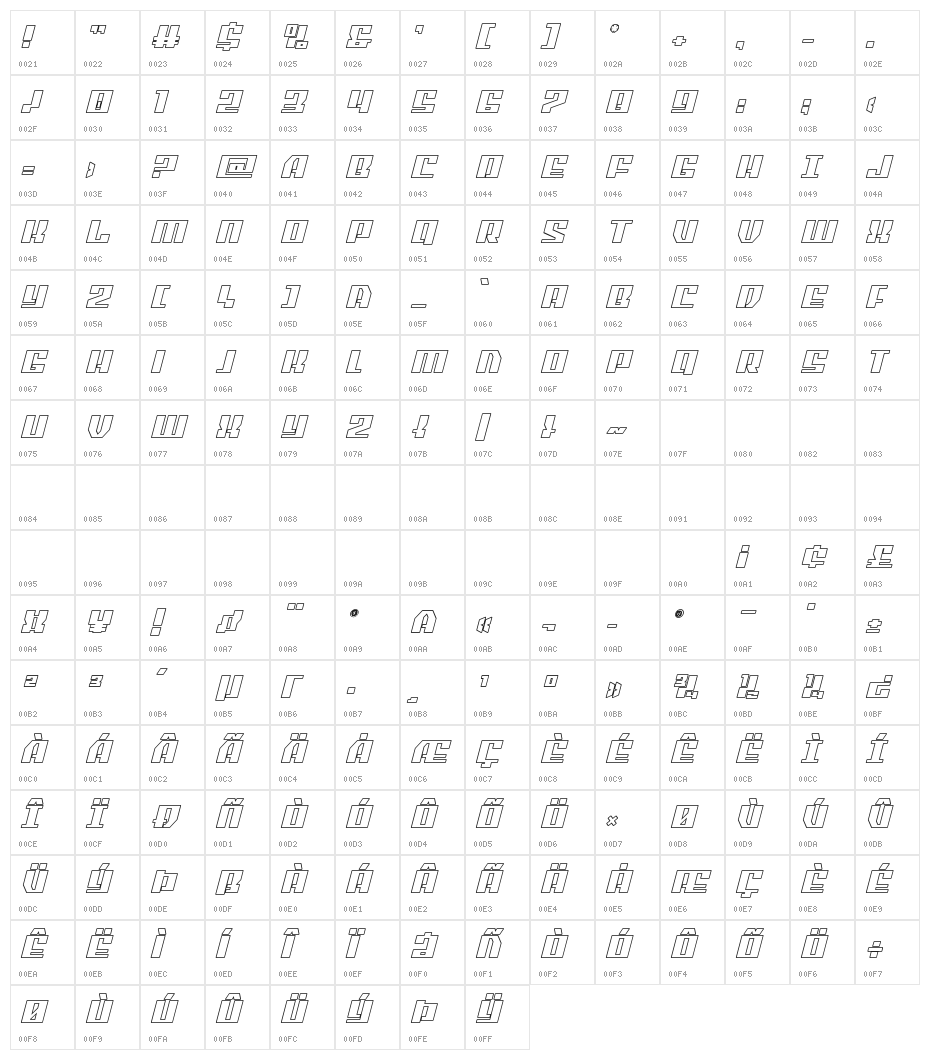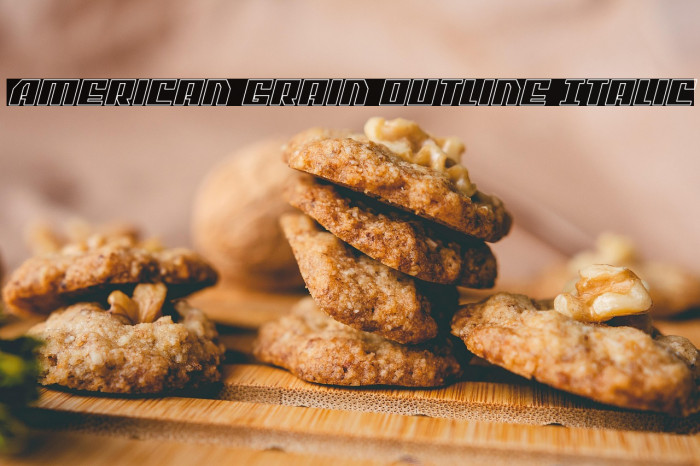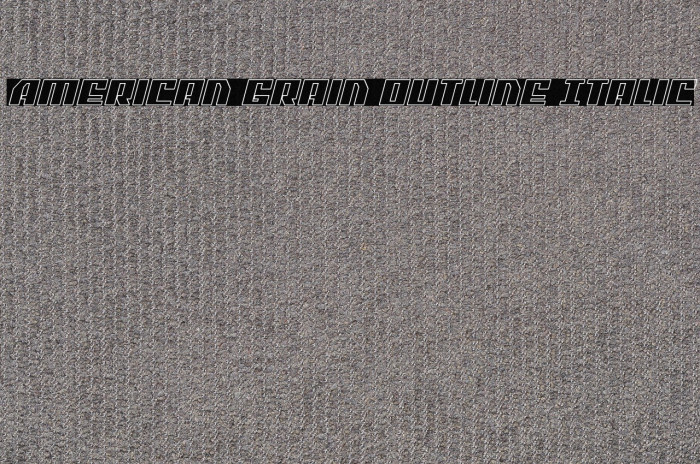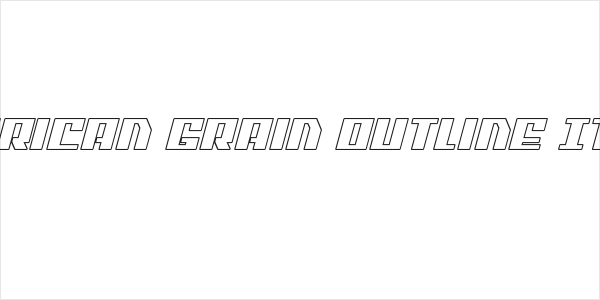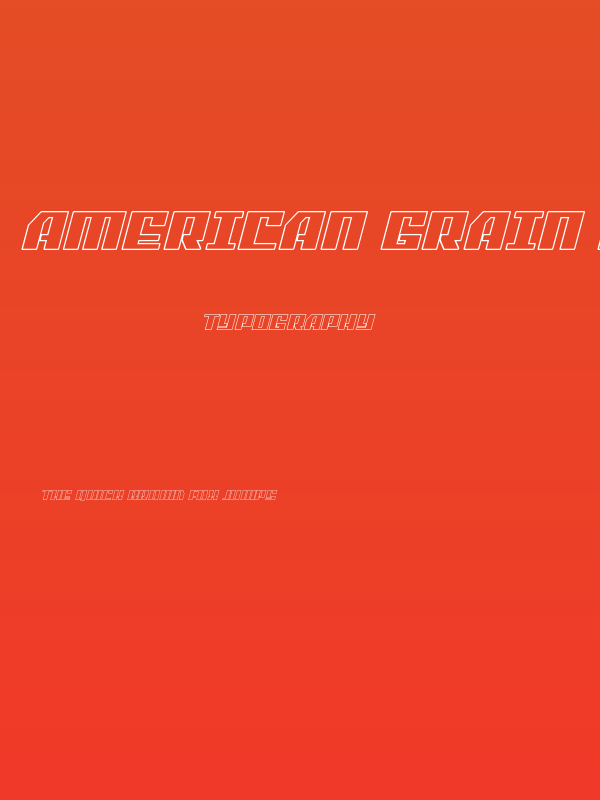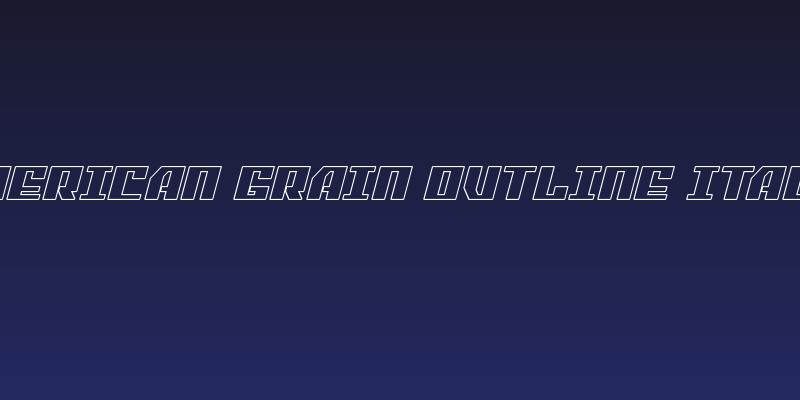
American Grain Outline Italic Font
American Grain Outline Italic Description
This font features a bold, geometric outline style with an italic slant, giving it a dynamic and modern appearance. The characters are constructed with sharp angles and clean lines, creating a sense of movement and energy. The uppercase and lowercase letters maintain a consistent width, while the numerals and special characters follow the same angular design. The outline effect adds a layer of depth, making the font suitable for eye-catching designs. Its unique style is ideal for projects that require a futuristic or tech-inspired aesthetic.
| Proposed Projects | Ideal for branding, posters, video game graphics, and futuristic-themed designs. |